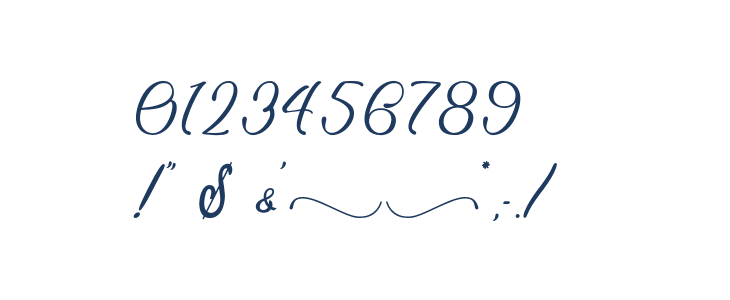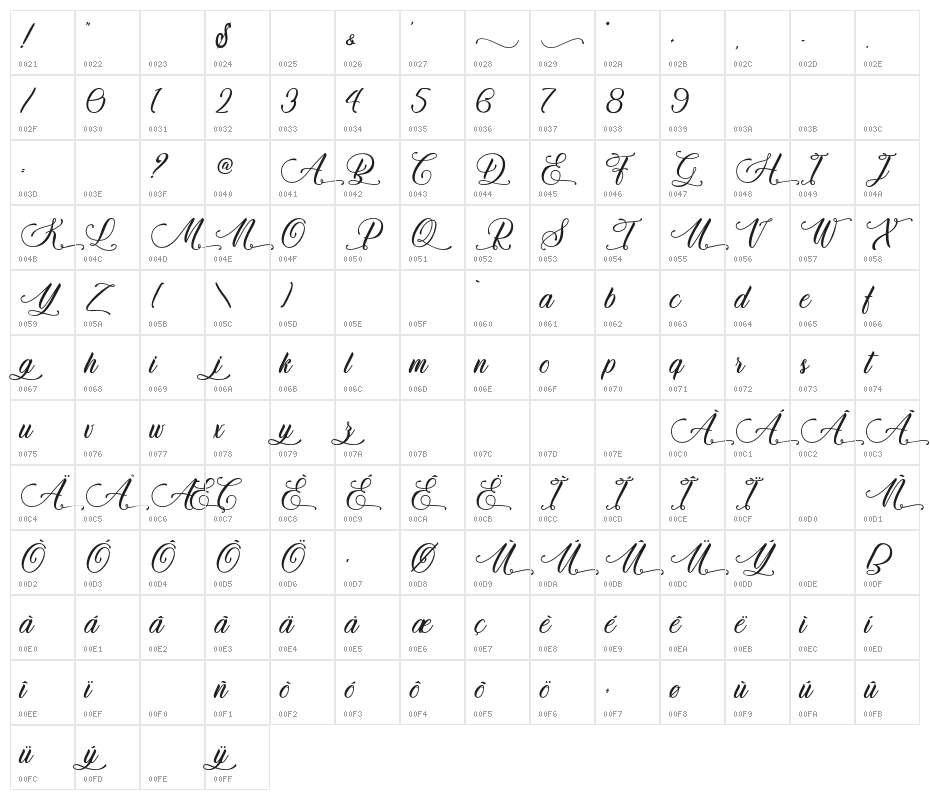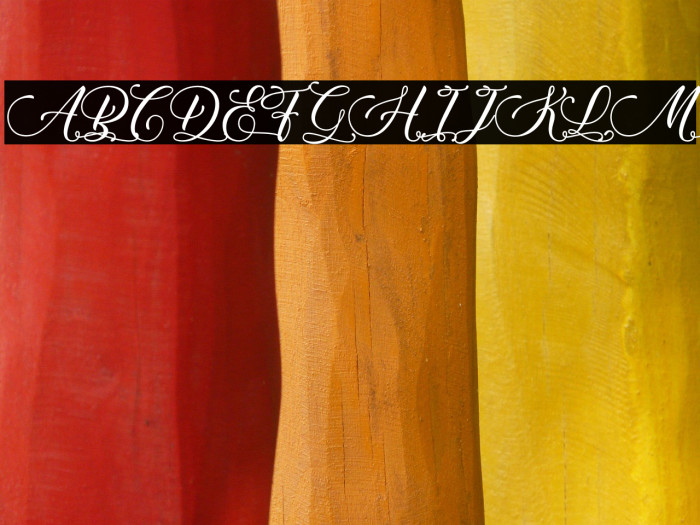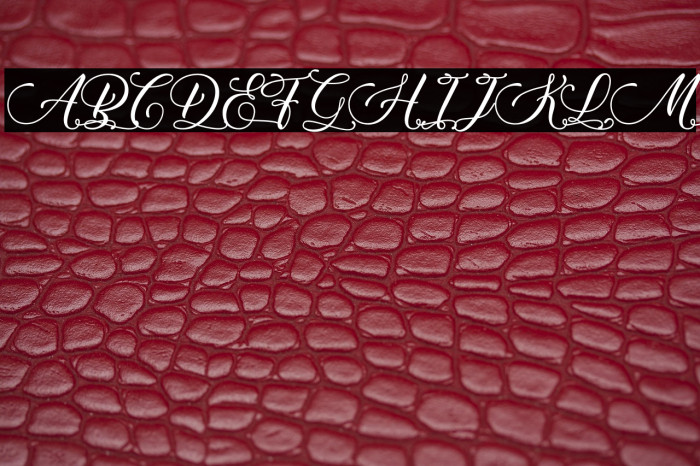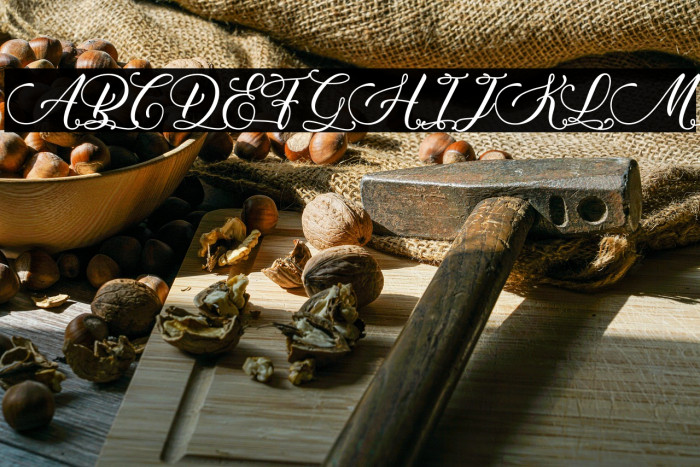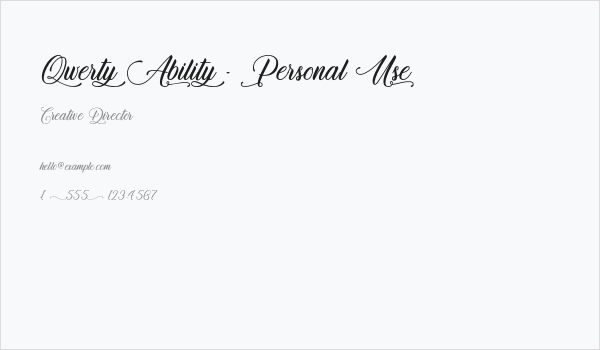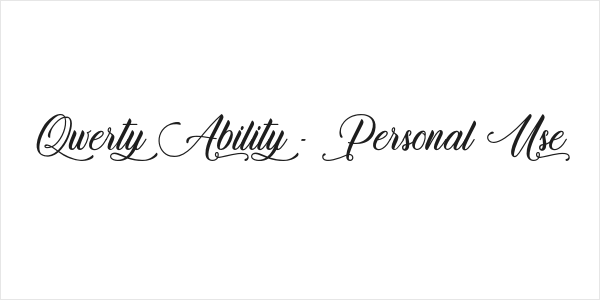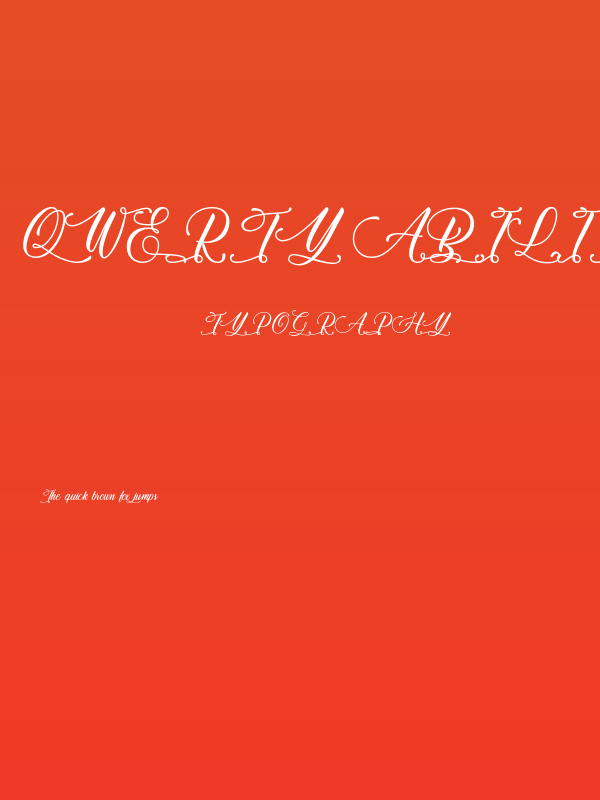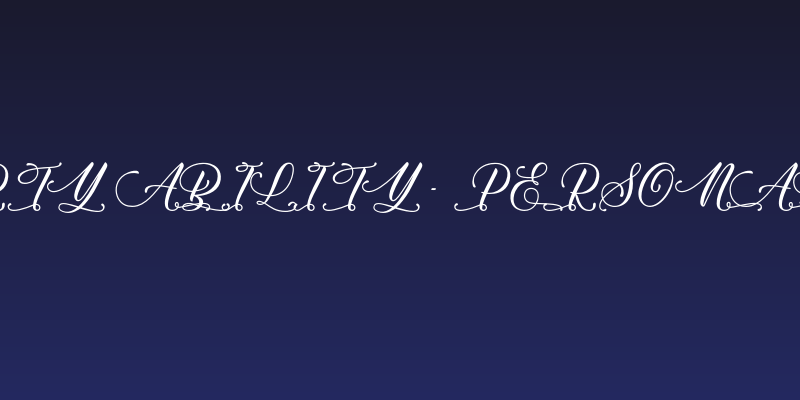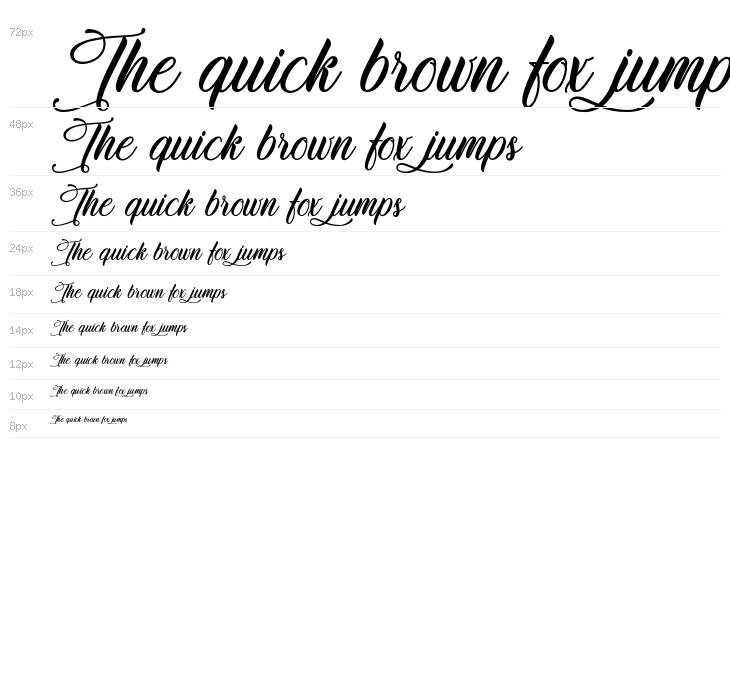
Qwerty Ability - Personal Use Font
Qwerty Ability - Personal Use Description
This elegant script font features intricate swirls and flourishes, giving it a sophisticated and decorative appearance. The uppercase letters are adorned with elaborate loops, while the lowercase letters maintain a smooth, flowing style. The numerals are consistent with the overall design, offering a harmonious blend of curves and lines. Special characters are equally ornate, adding to the font's charm. This font is ideal for projects that require a touch of elegance and creativity, such as wedding invitations, greeting cards, and luxury branding.
| Proposed Projects | Wedding invitations, greeting cards, luxury branding, decorative signage. |